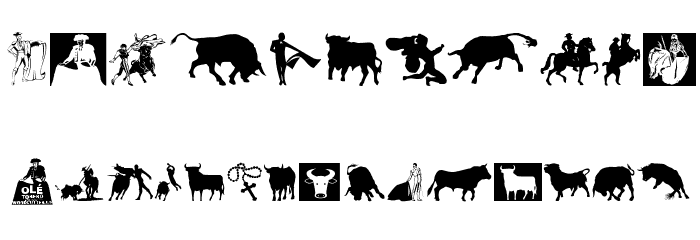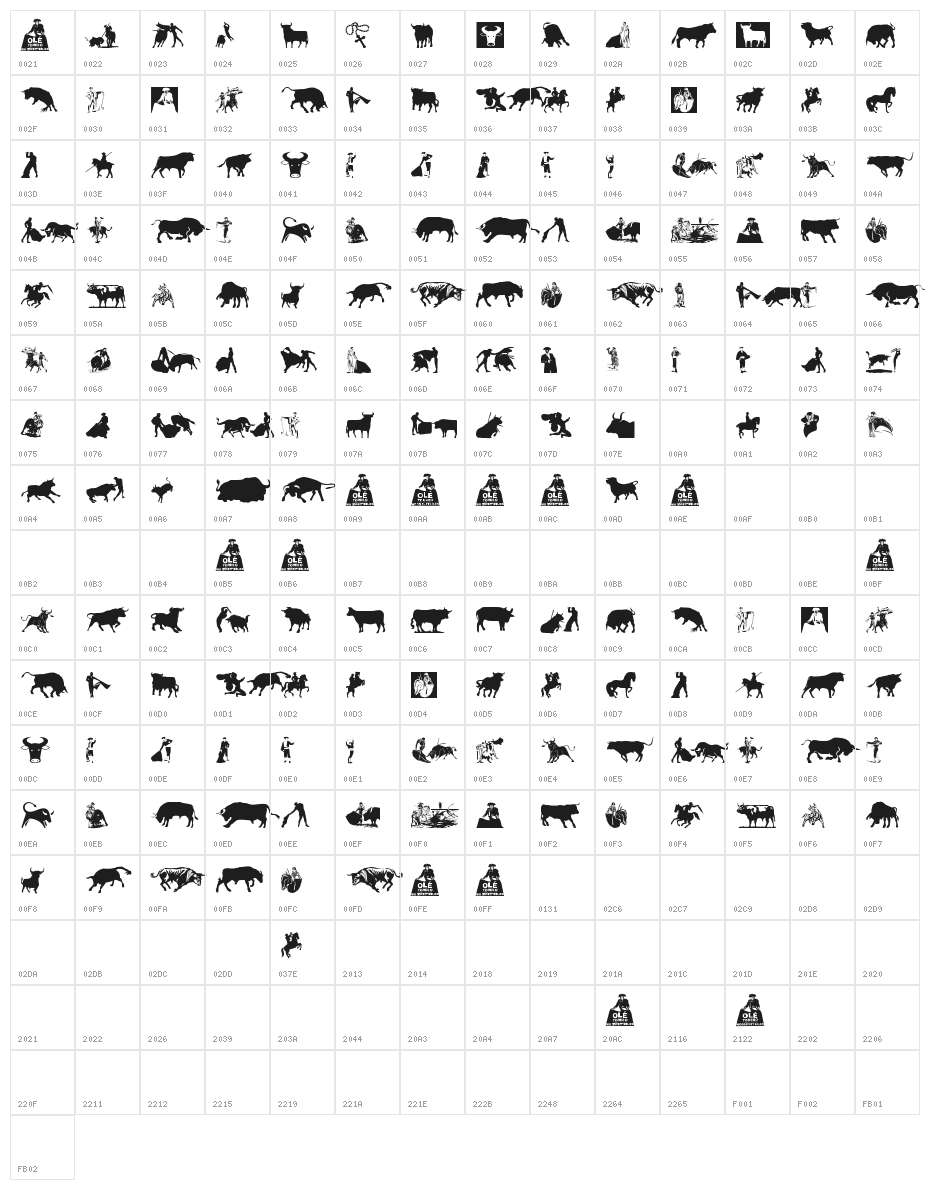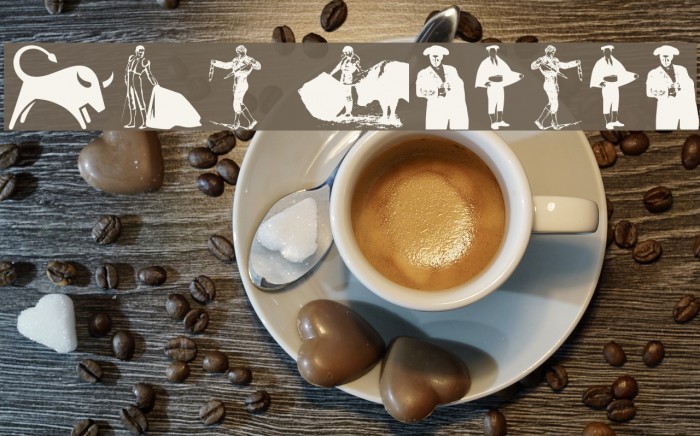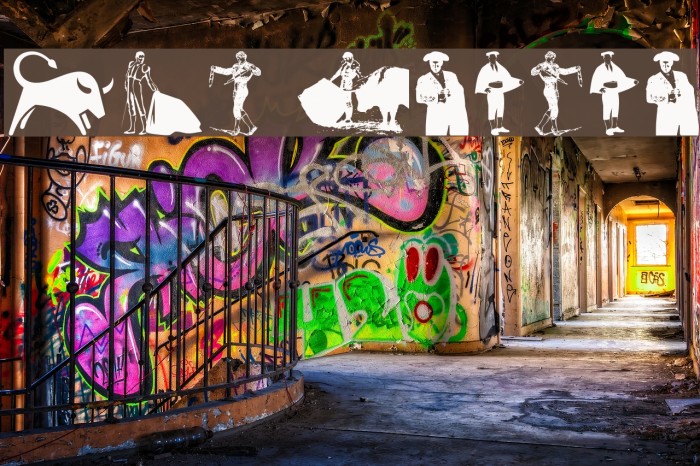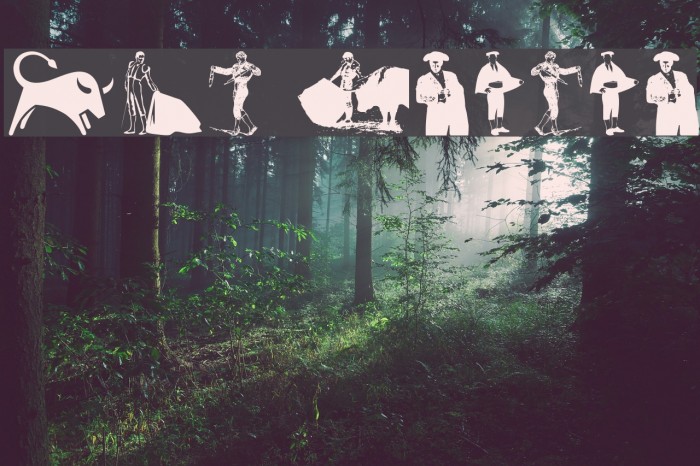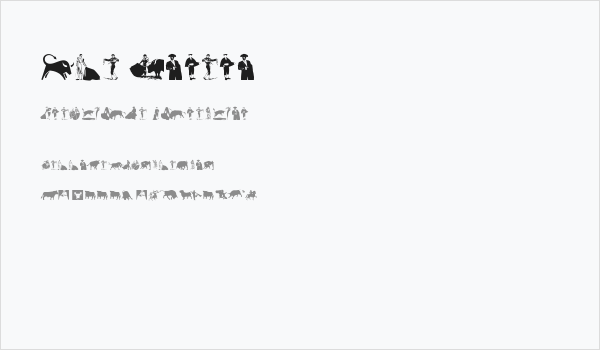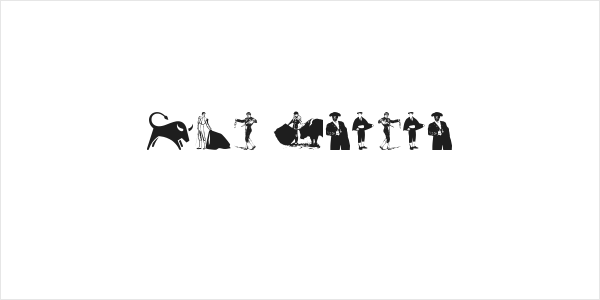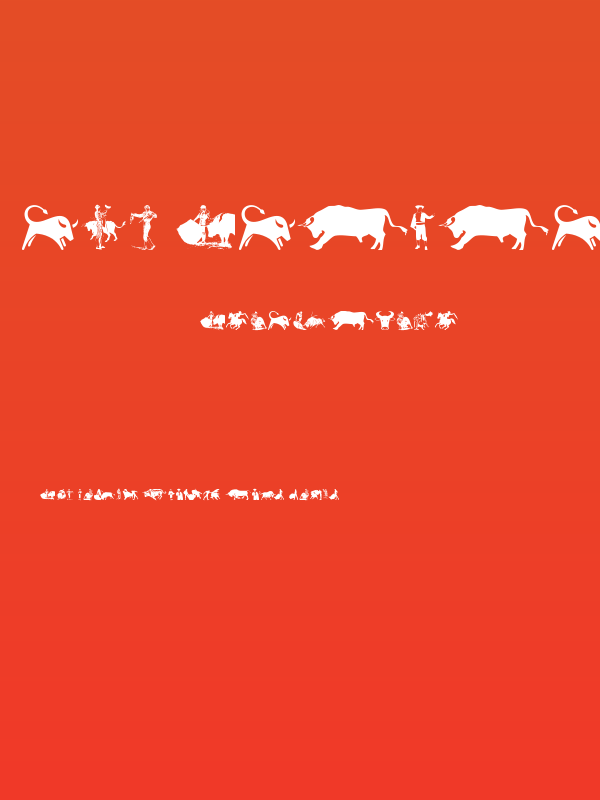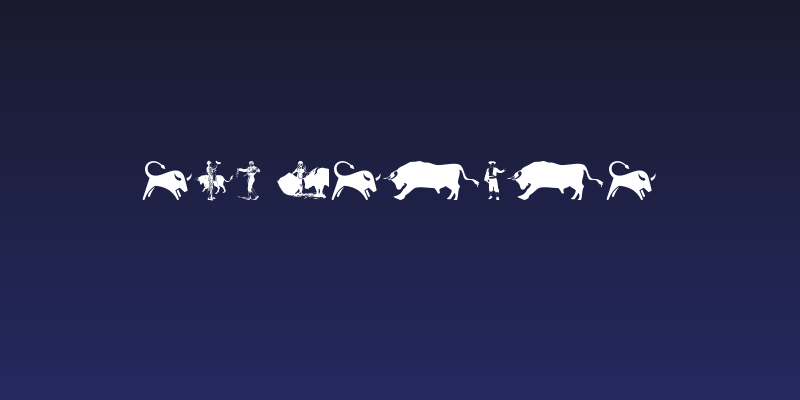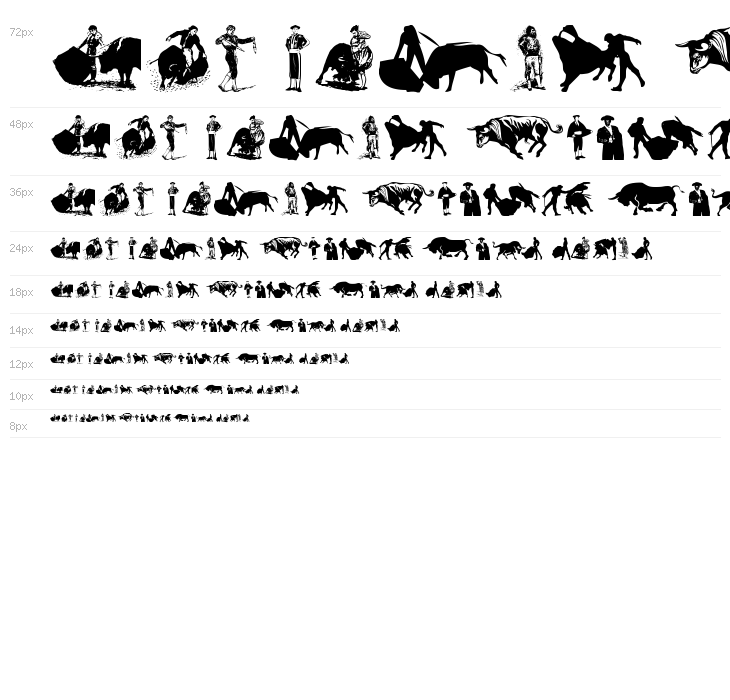
Olé Torero Font
Olé Torero Description
A pictogram-style dingbat set featuring detailed black-and-white silhouettes of bullfighters, bulls, matadors, and related Spanish bullfighting scenes. Each character is a unique illustration rather than a traditional letterform, with high contrast and expressive poses.
| Overall Style | Decorative, Thematic, Pictorial |
| Use Case | Logos, Posters, Themed graphics, Decorative elements |
| Proposed Projects | Event posters, themed invitations, cultural festival materials, decorative borders, educational materials about Spanish traditions. |